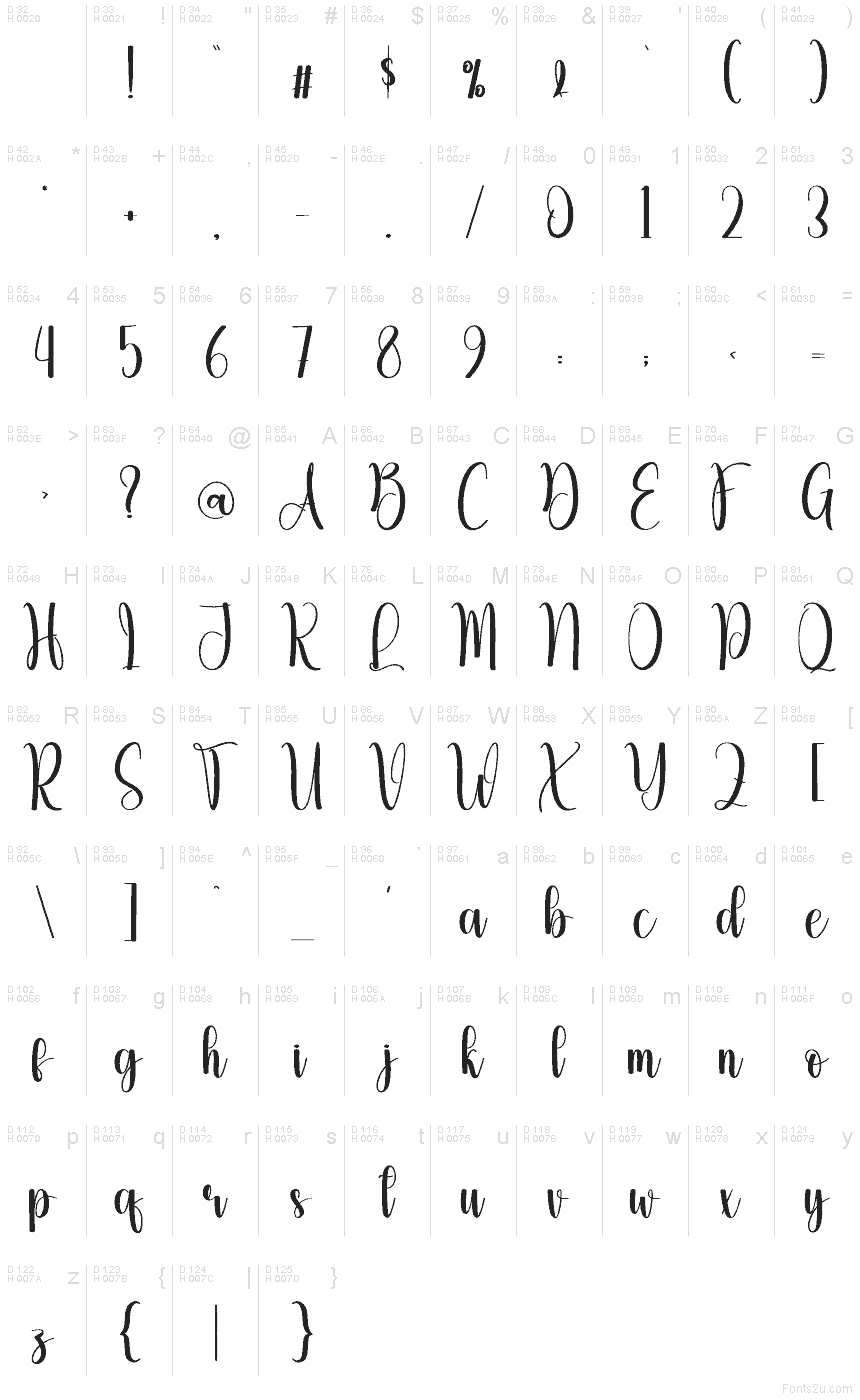
Christmas Time
Christmas Time font by Scratchones is a free calligraphy font that stands out with its elegant and flowing design. The decorative font is expressive and sophisticated, mixing nostalgic elements with modern sensibilities to deliver a standout artistic piece meant for display.
The Christmas Time typeface can be used in commercial applications including branding projects, holiday cards, invitations, posters, Christmas displays graphic design projects across print or digital media.